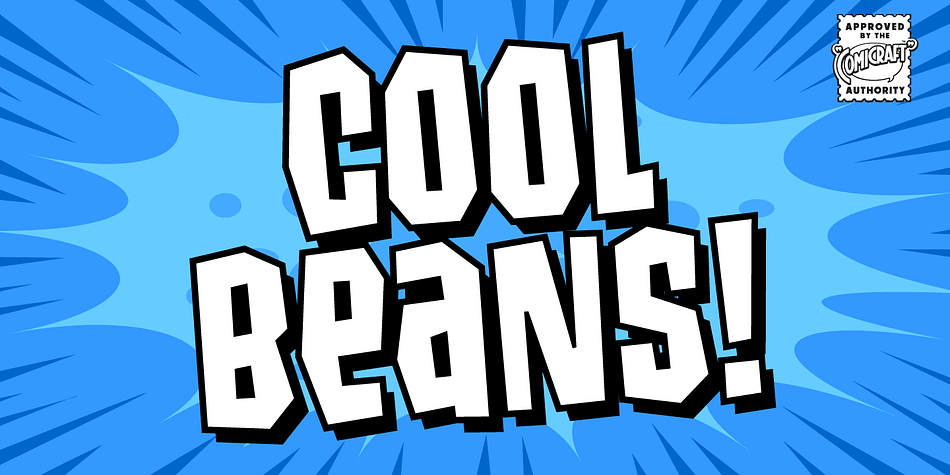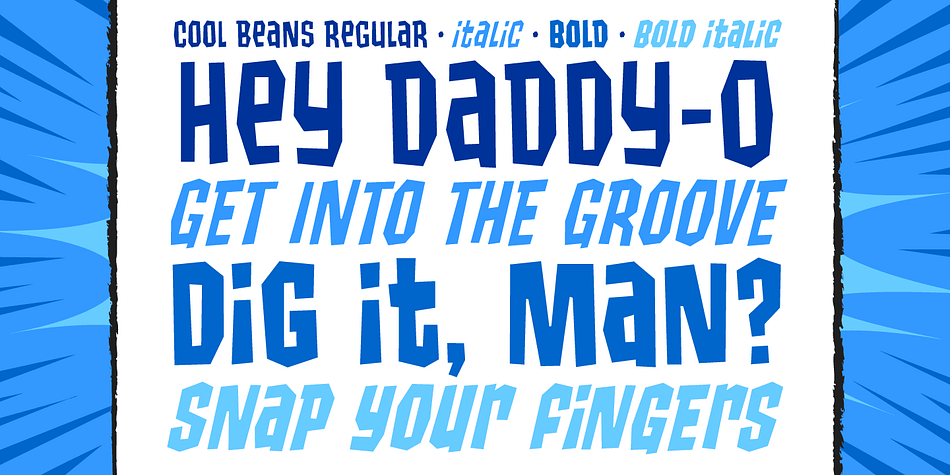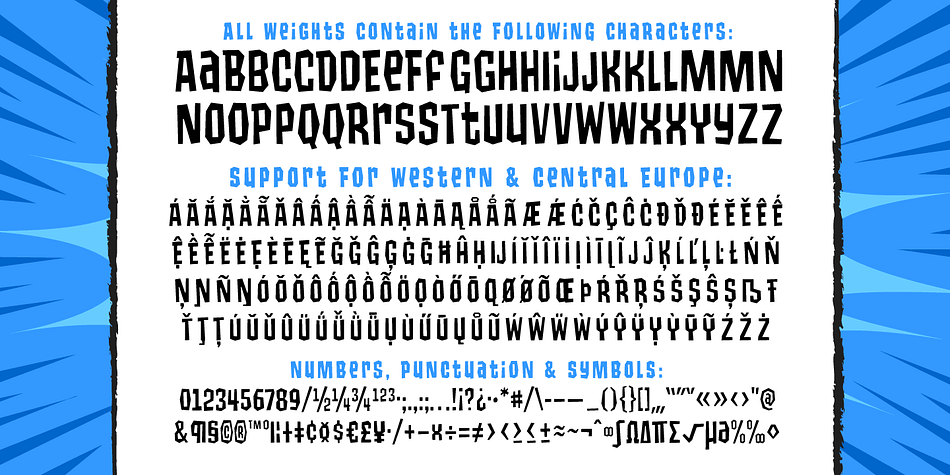
Designed by John Roshell, Cool Beans is a hand display font family. This typeface has four styles and was published by Comicraft.
COOL BEANS… Can you dig it, man? Comicraft’s Jazzy “JG” Roshell, just swung by after playing bongos down at the coffee bar in his black turtleneck sweater, stove-pipe trousers, dark glasses and beret. Check out the rad Tiki corners on our freshest font, COOL BEANS and you’ll want to snap your fingers, put on some Miles Davis and take the next train out of Squaresville, um, Daddio.